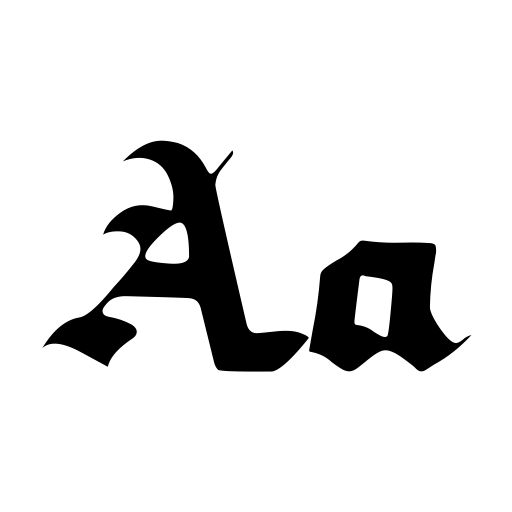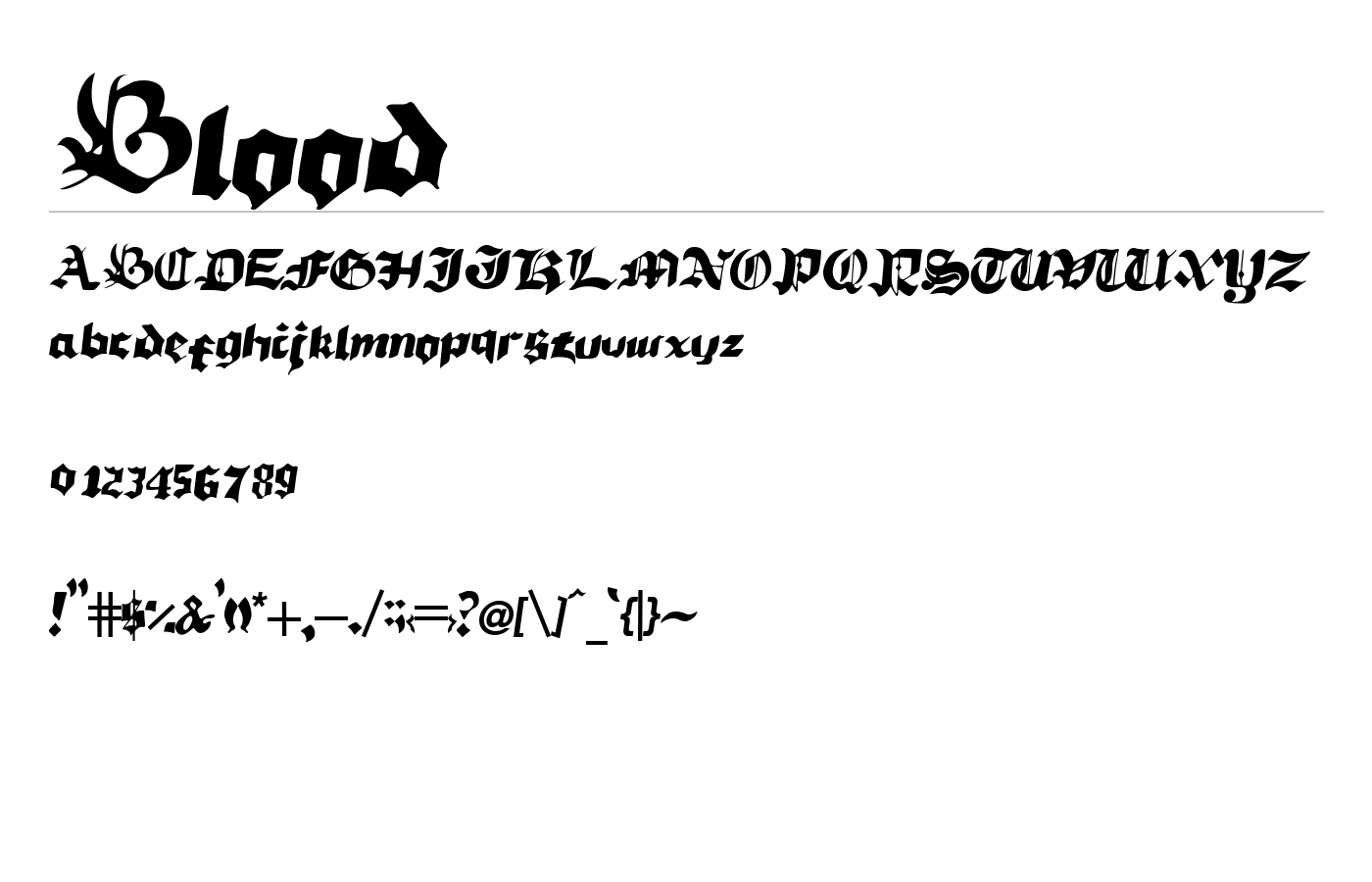
Blood Font is a bold, blackletter-style typeface with sharp, angular strokes and a gothic, medieval feel. Its heavy weight and dramatic flair make it perfect for creating a dark, mysterious atmosphere, ideal for branding related to horror, fantasy, or metal music themes. This font works best in headlines and logos where a striking, vintage-inspired impact is desired.
Blood Font
About Blood Font
| Font family | Blood Font |
| Designer | Delip Nugraha |